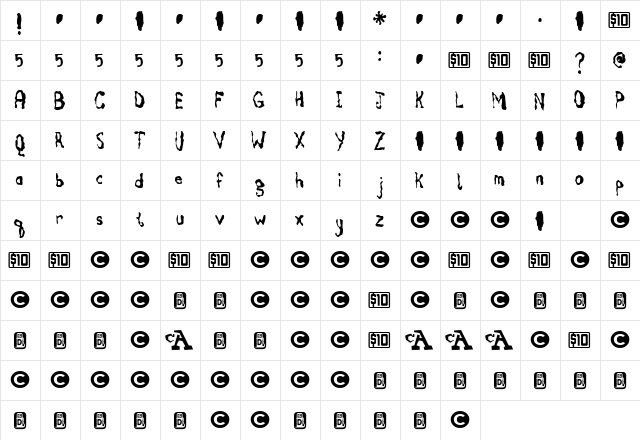
Fruitcake Regular
Design Context for Fruitcake Typeface
Fruitcake is a composed and adaptable typeface that performs quietly and consistently across a wide range of design contexts.